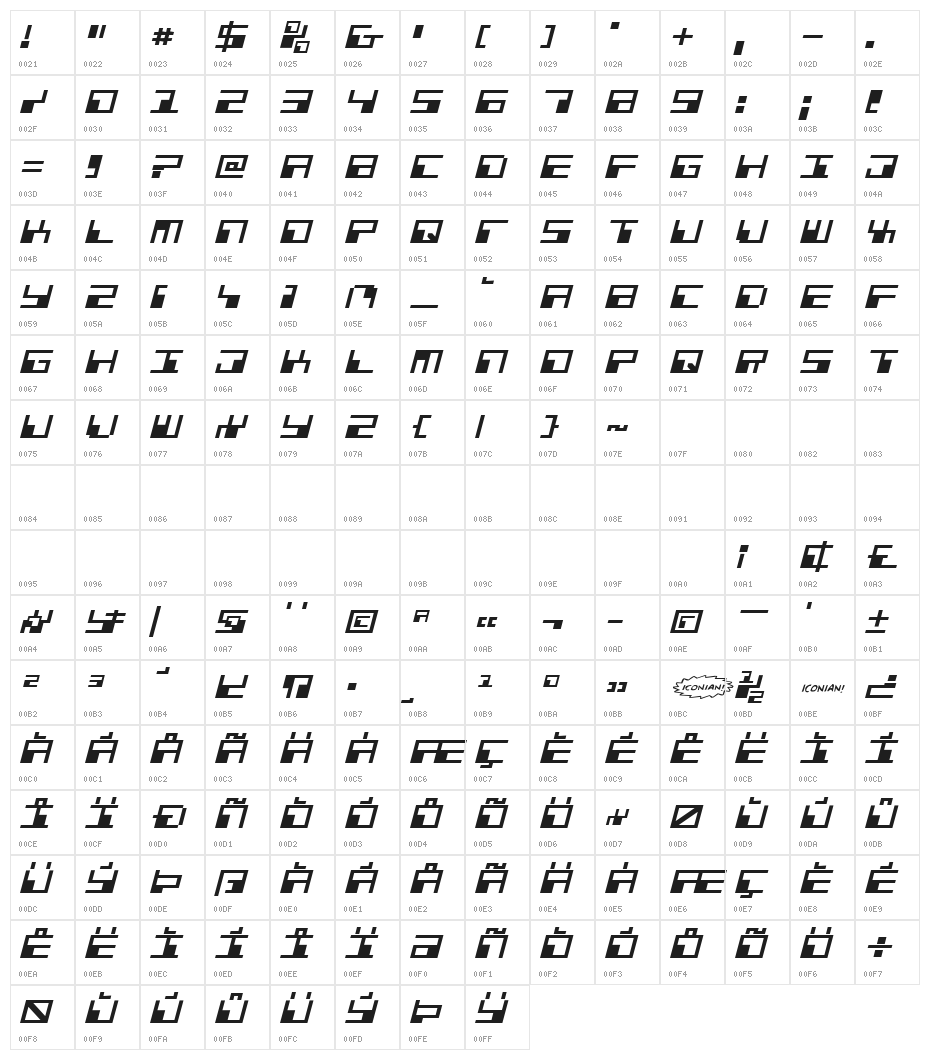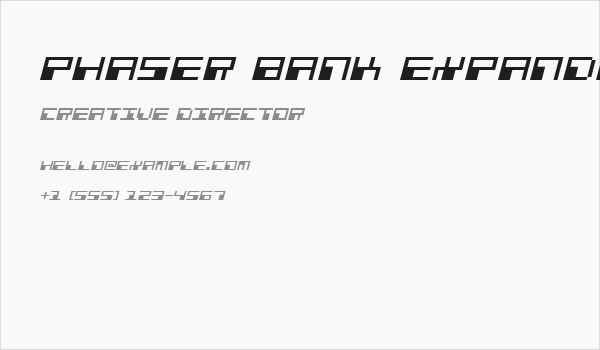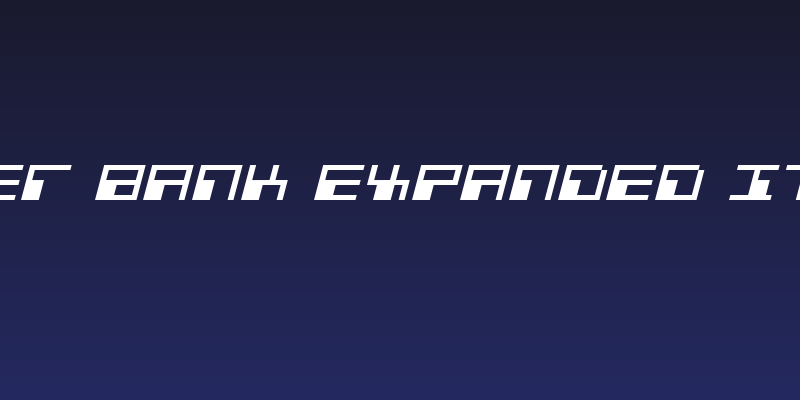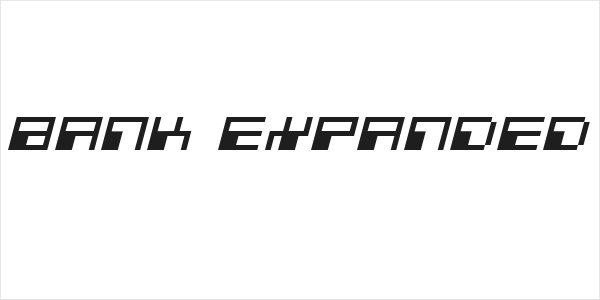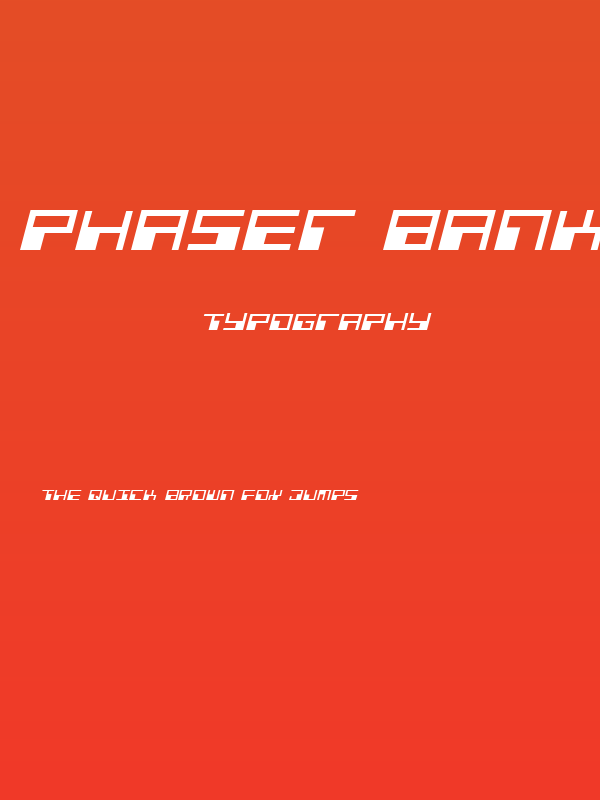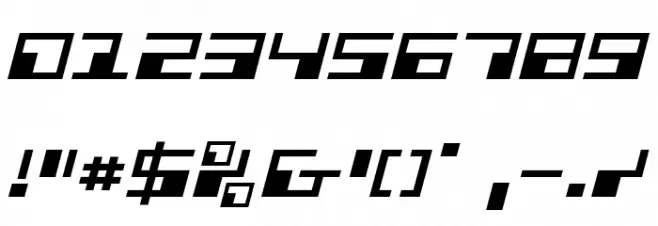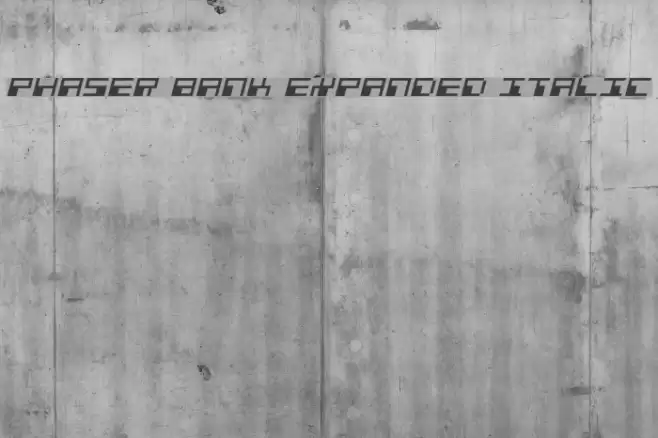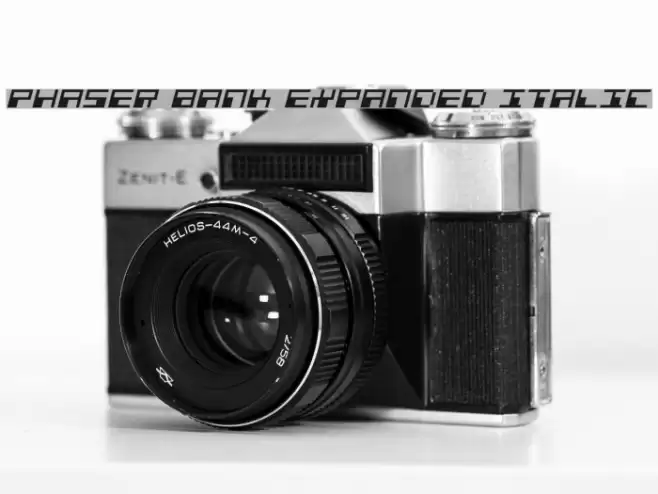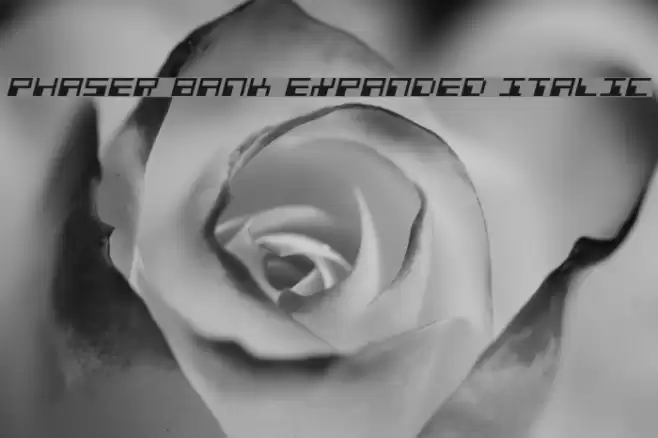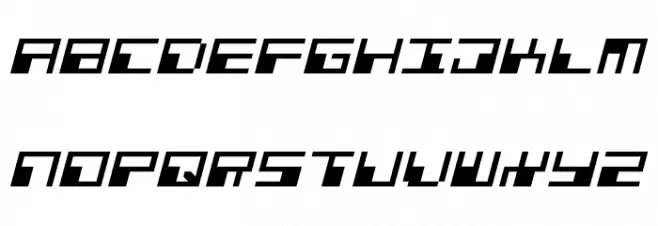
Phaser Bank Expanded Italic Font
Phaser Bank Expanded Italic Description
This font features a bold, futuristic design with sharp, angular lines and a distinct italic slant. The expanded width gives it a commanding presence, making it ideal for attention-grabbing headlines or titles. Each character is crafted with precision, showcasing a modern aesthetic that blends geometric shapes with a dynamic forward motion. The uppercase and lowercase letters maintain a consistent style, while the numerals and special characters complement the overall design. Its high contrast and unique style make it suitable for projects that require a strong, impactful visual statement.
| Proposed Projects | Ideal for sci-fi themed designs, video game graphics, movie posters, and branding that requires a modern, edgy look. |